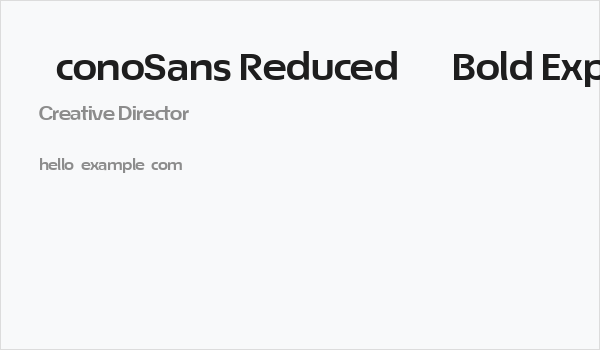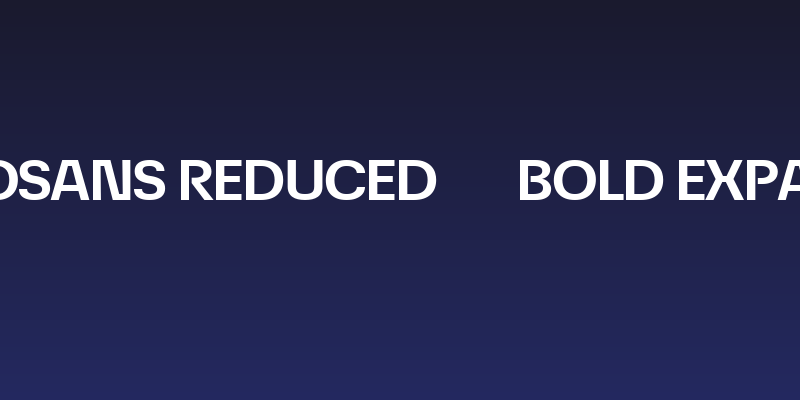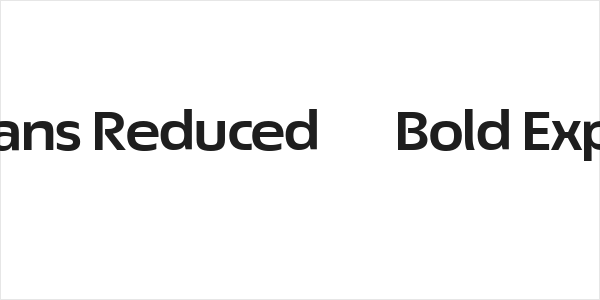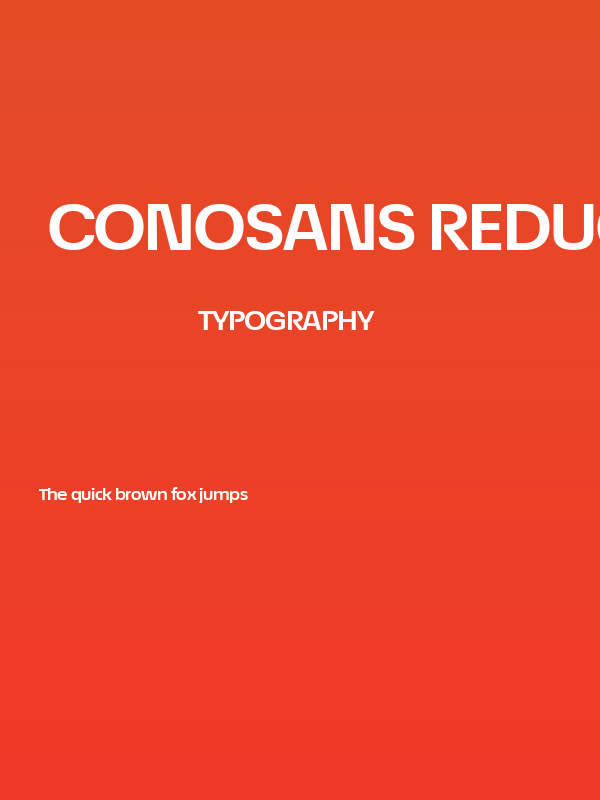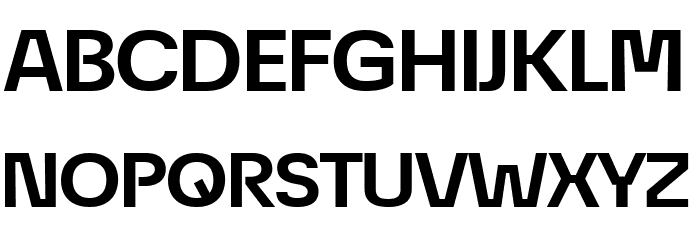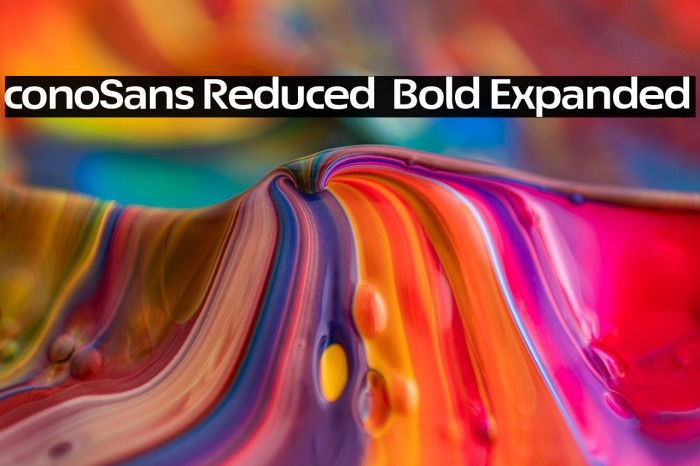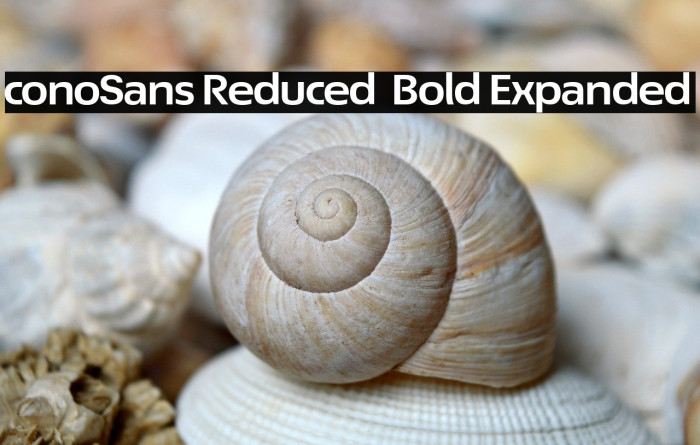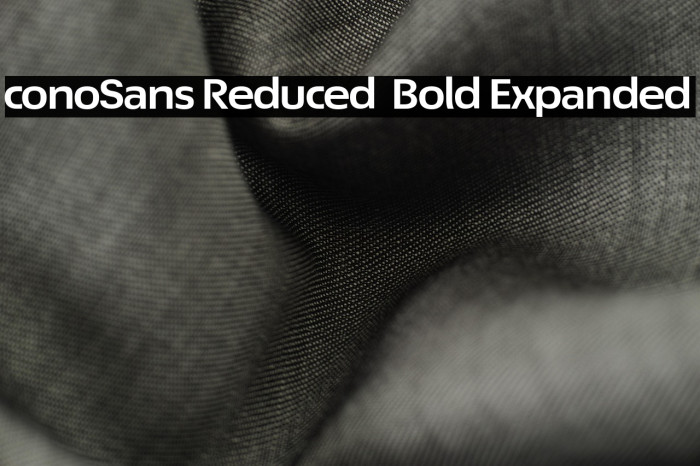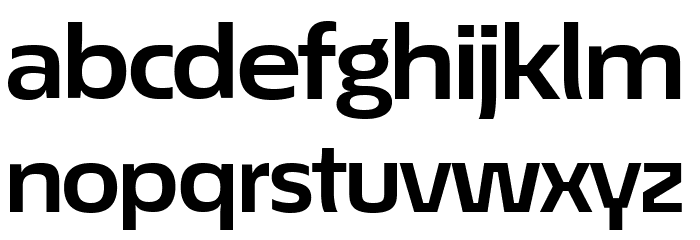
ÉconoSans Reduced 73 Bold Expanded Font
ÉconoSans Reduced 73 Bold Expanded Description
This font features a bold and expanded style, characterized by its clean and modern sans-serif design. The letters are uniformly thick, providing a strong and impactful appearance. The uppercase and lowercase letters maintain a consistent width, contributing to the font's expanded nature. The rounded edges of certain characters add a touch of softness to the otherwise robust structure. This font is highly legible, making it suitable for various applications where clarity and emphasis are required. The spacing between characters is normal, ensuring readability while maintaining a cohesive look.
| Proposed Projects | Ideal for headlines, branding, advertising, and signage where a strong and modern presence is desired. |